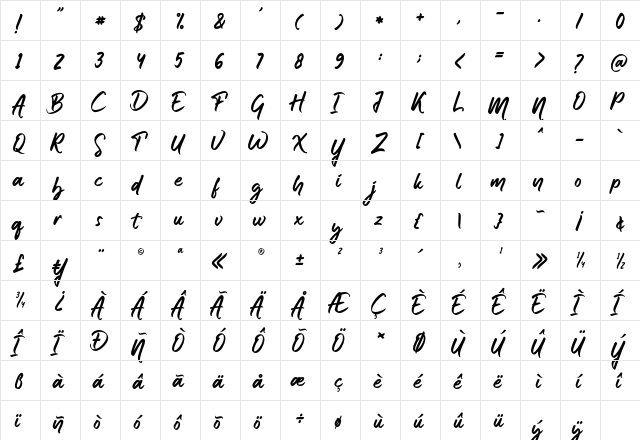
Holmeria Regular
| Foundry | Akifatype Studio |
| Designer | Khaled |
Design Context for Holmeria Typeface
Holmeria is a composed and adaptable typeface that performs quietly and consistently across a wide range of design contexts.